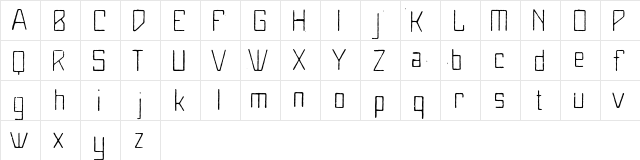
MaiersNr8 Light
| Foundry | ingoFont Augsburg, Ingo Zimmermann. Aus: Schriften=Sammlung fuer Techniker. Herausgegeben von Karl O. Maier. |
| Designer | Ingo Zimmermann, Karl O. Maier |
Design Context for MaiersNr8 Typeface
MaiersNr8 offers clean, dependable letterforms without strong stylistic allegiance, making it a practical choice for designers who need flexibility. Its slender proportions lend an understated elegance to any composition.